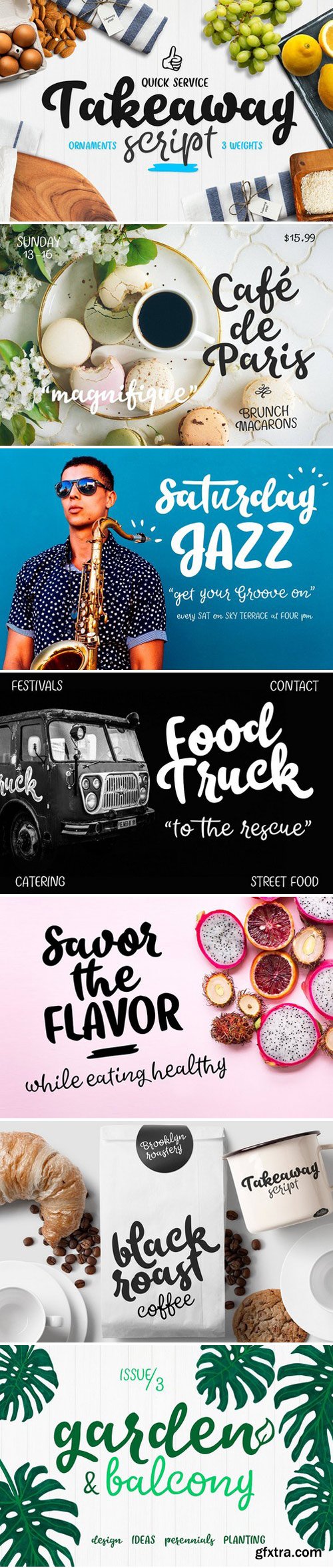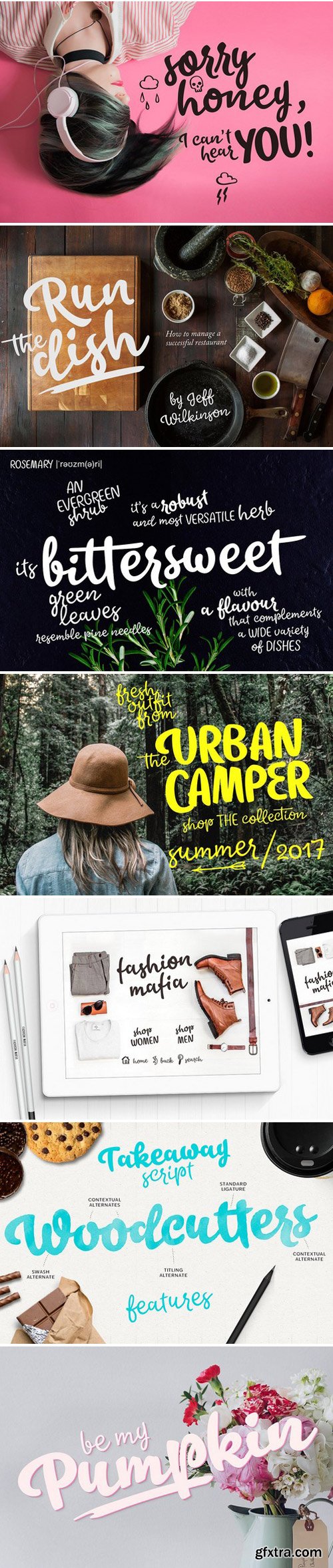
Takeaway is a hand drawn script family of three weights and ornament set. Takeaway is sketchy but due to its clean features it retains legibility even in small sizes - especially the Light version.